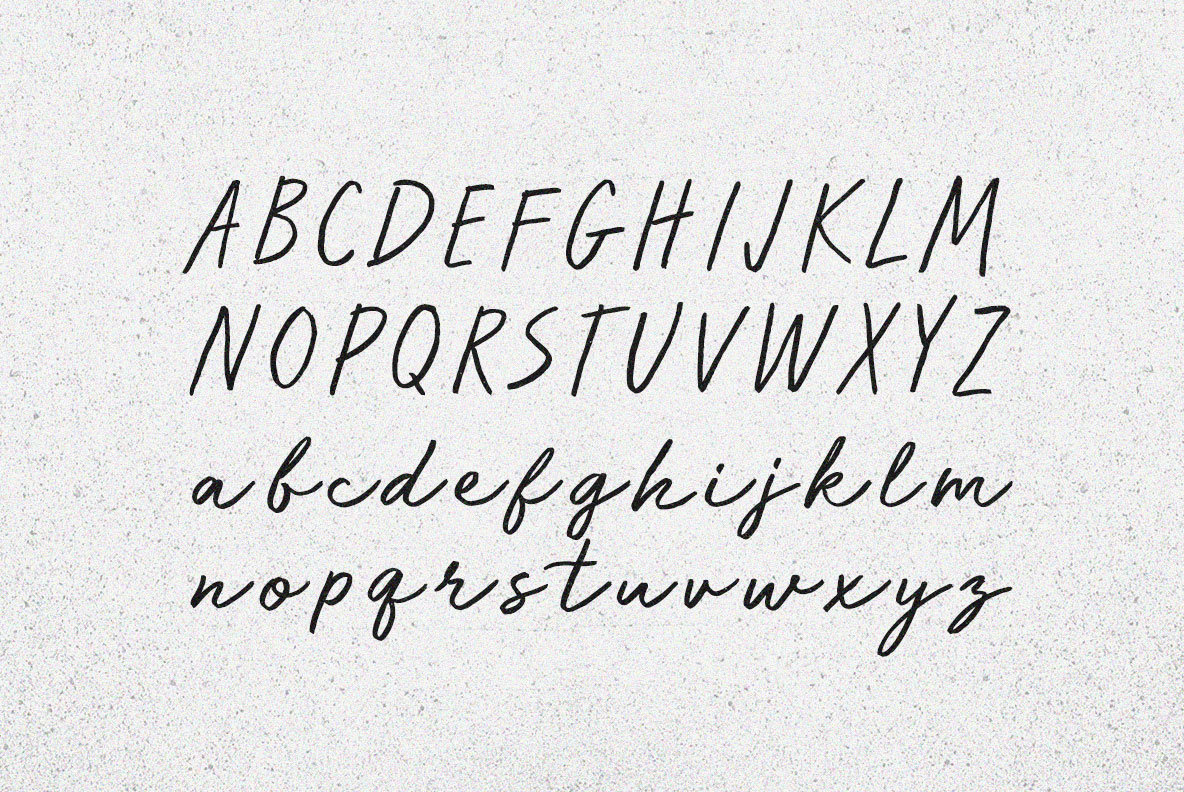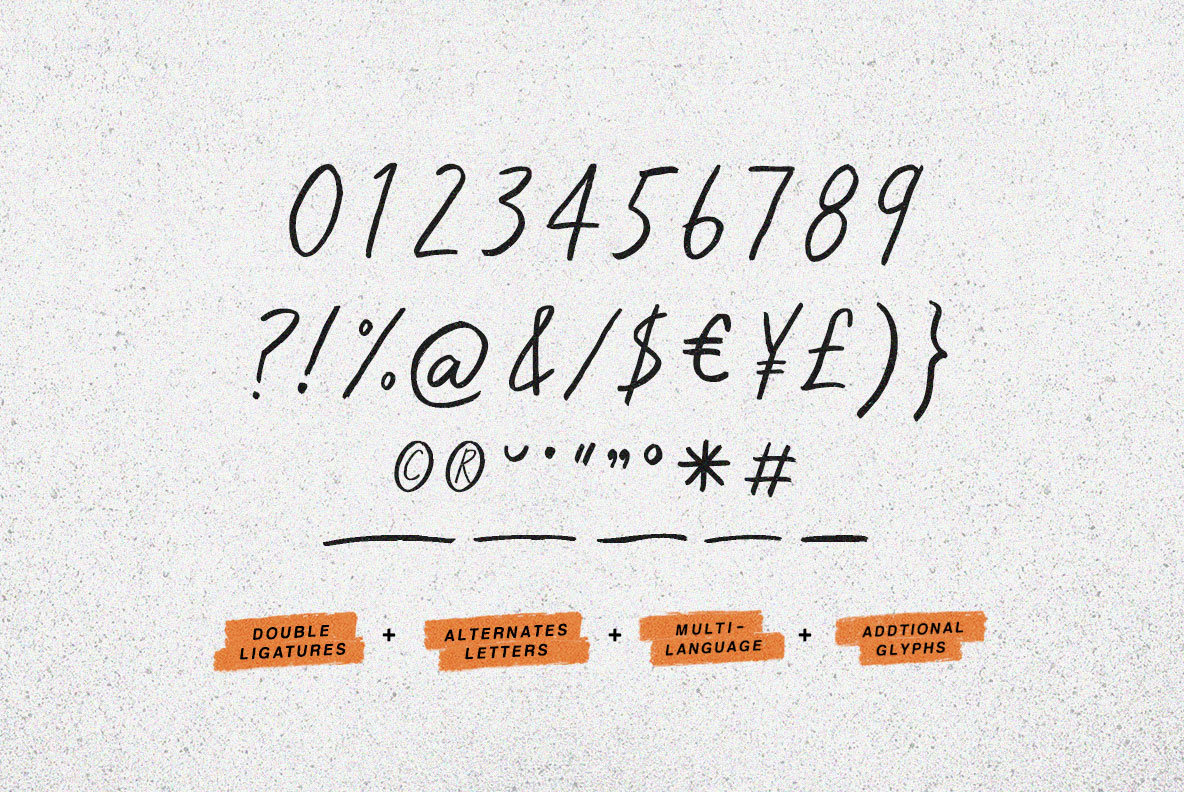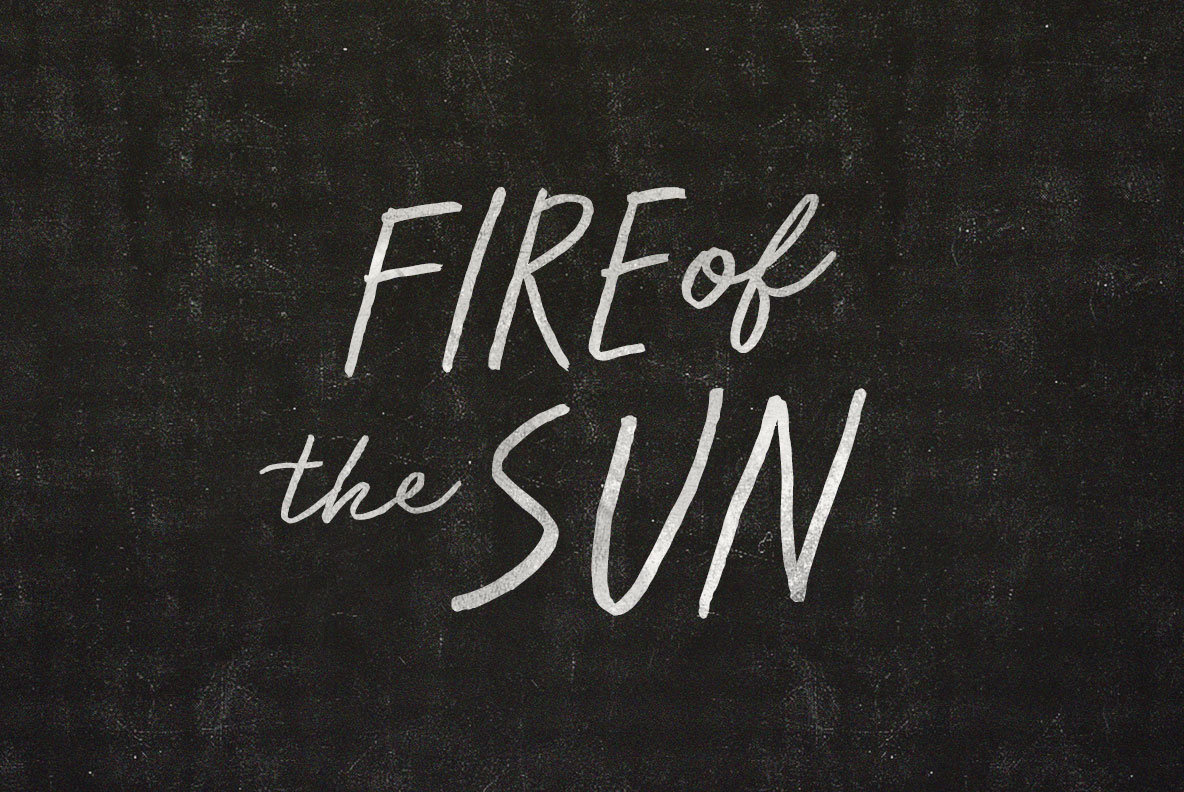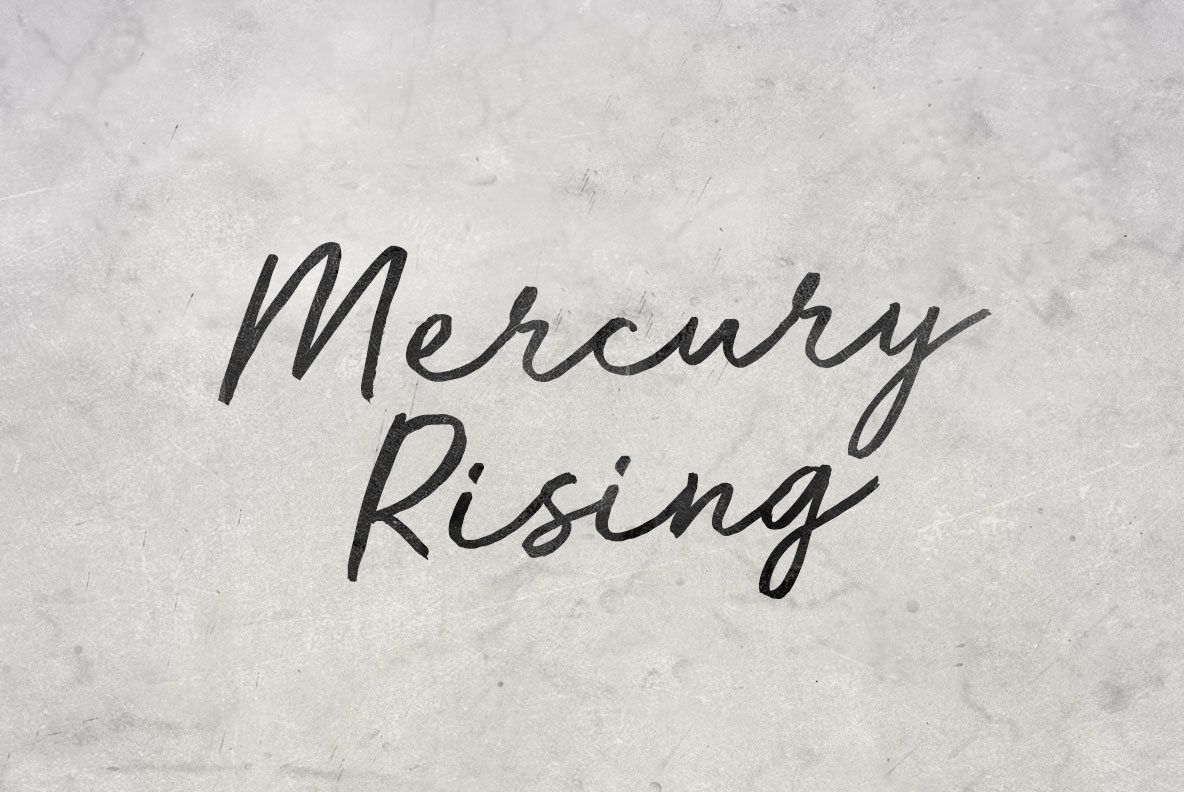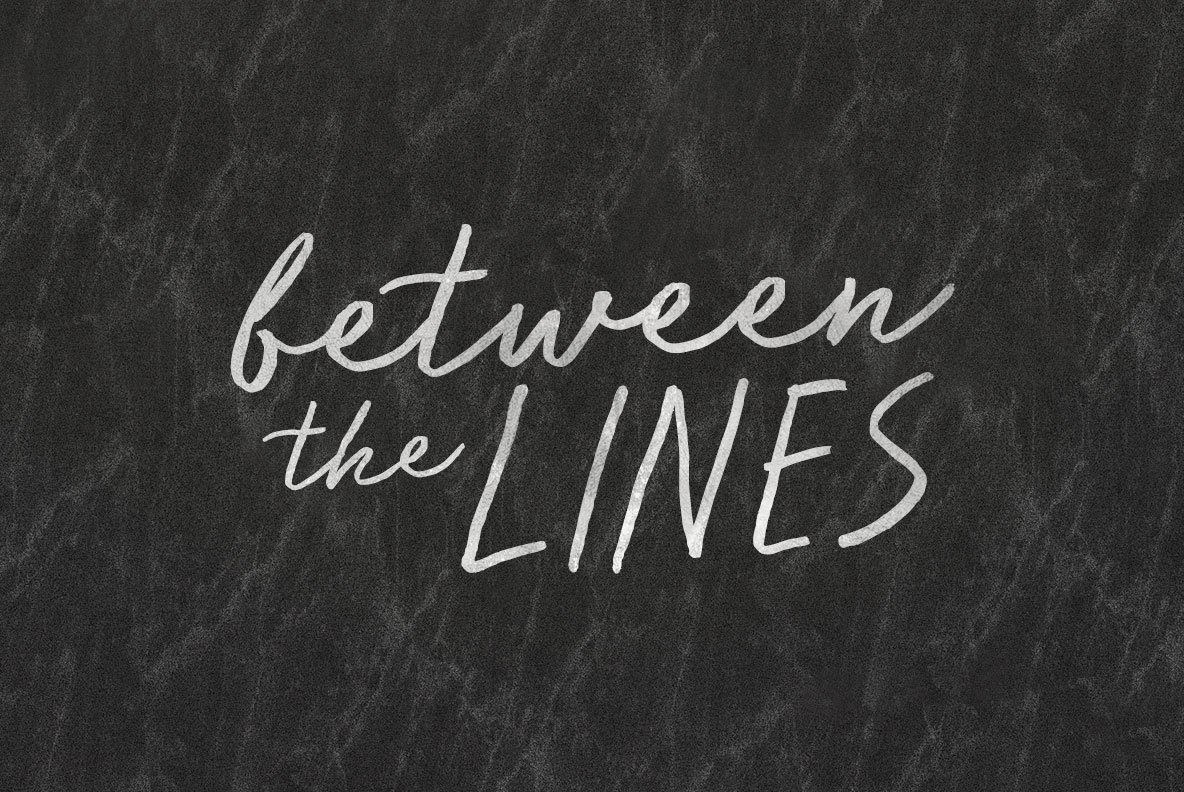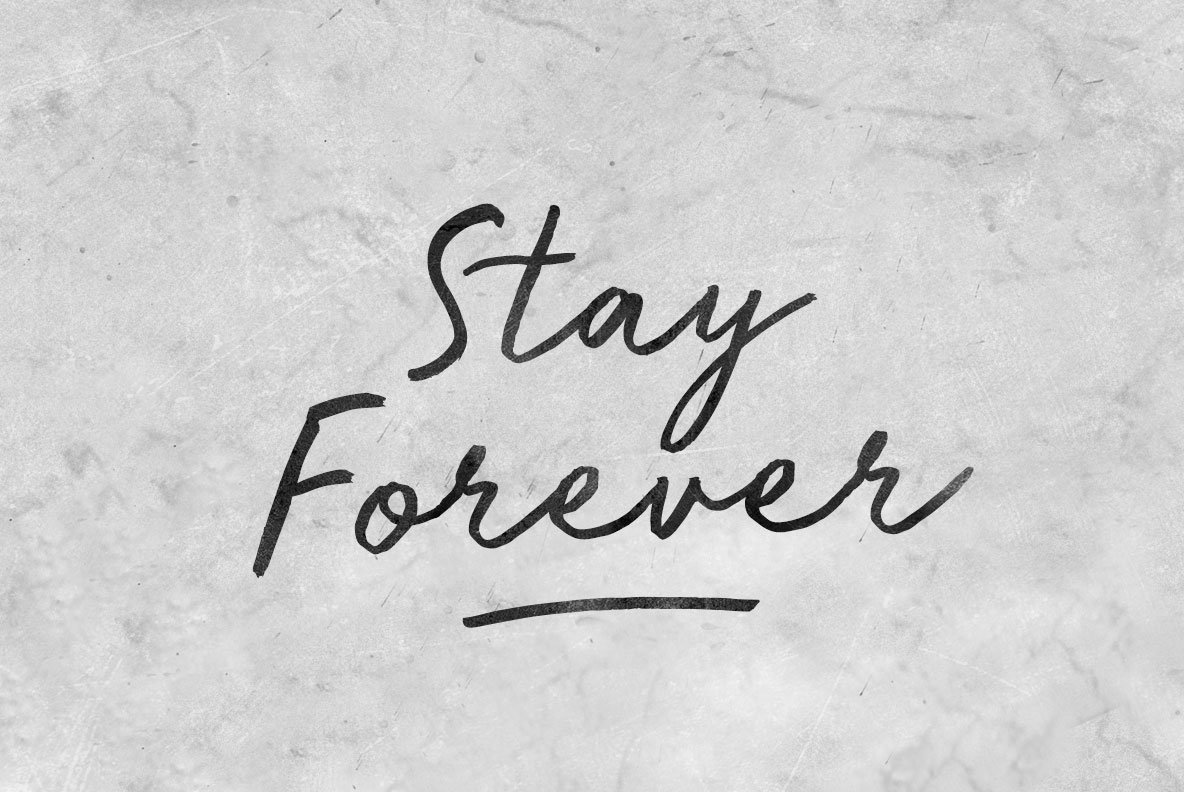
Run Wild Font
Run Wild
Come with the willpower and callouses to run a marathon barefoot. Kick glass and break pavement because this is more than fleet feet. Run fast and run far because the world's round; Run Wild because conventions can't keep good feet from the ground.